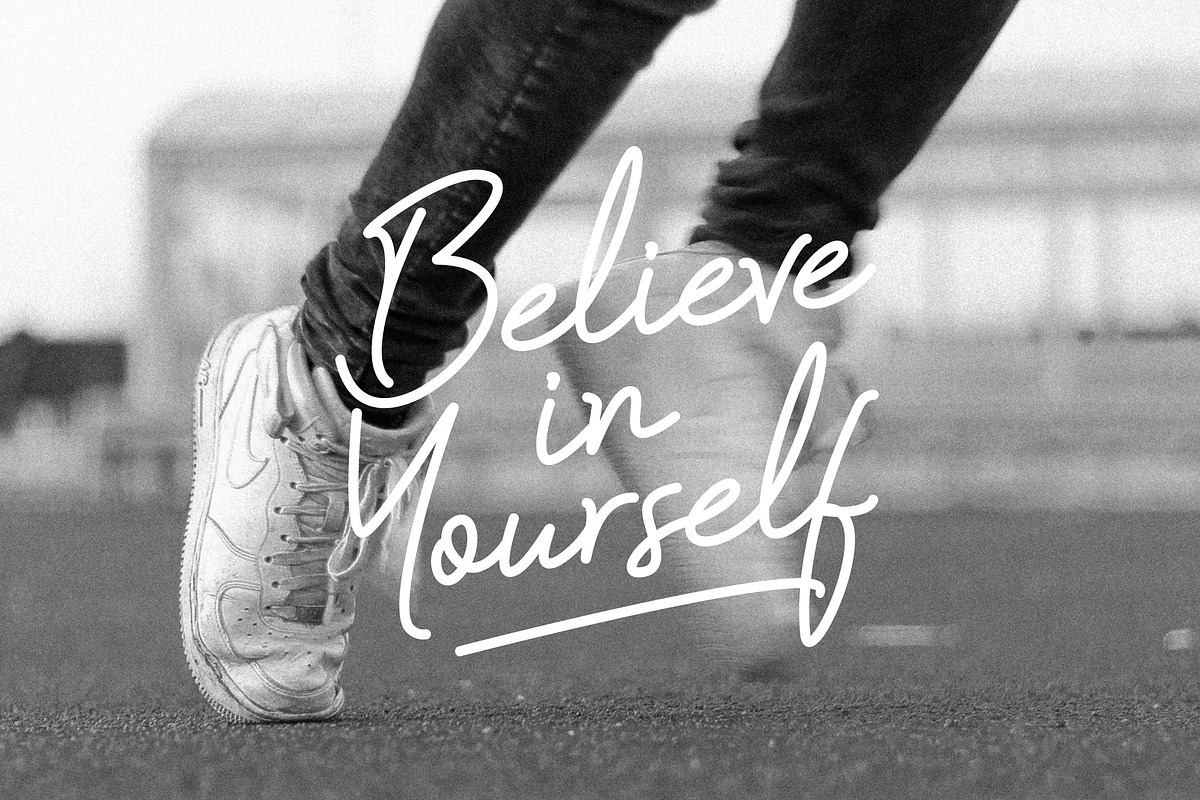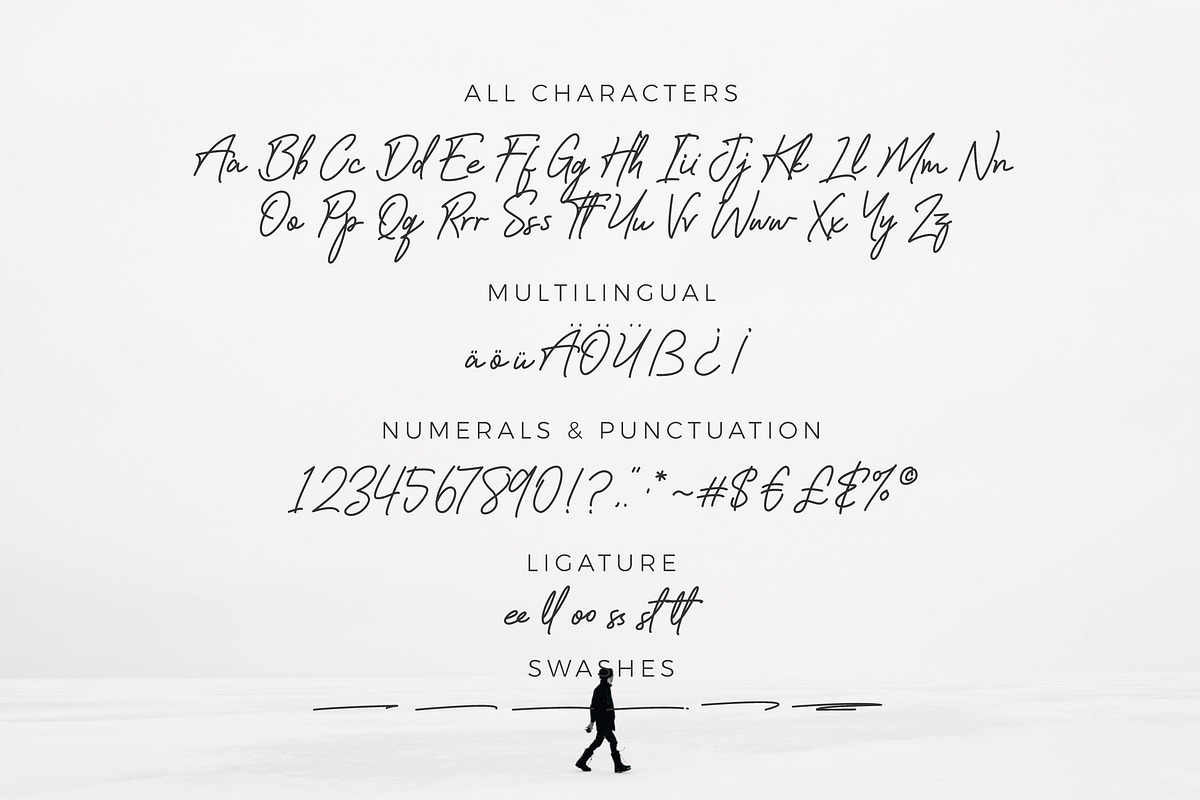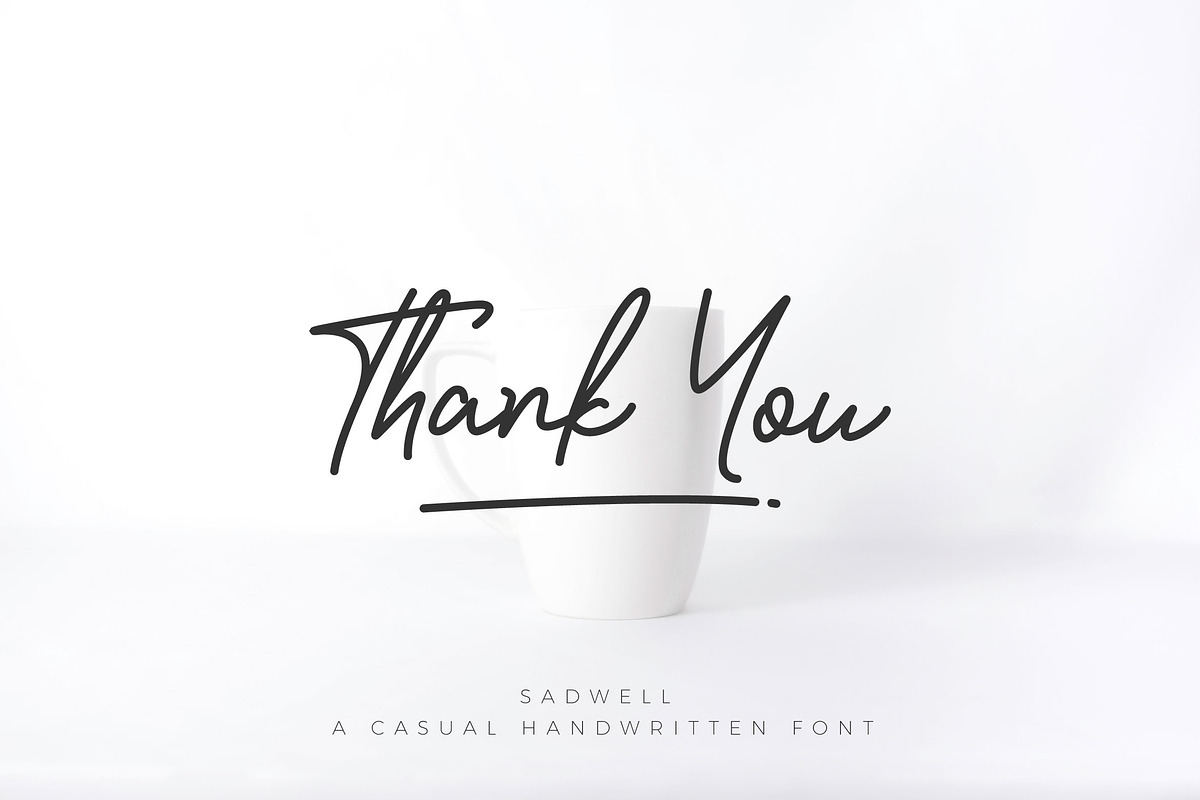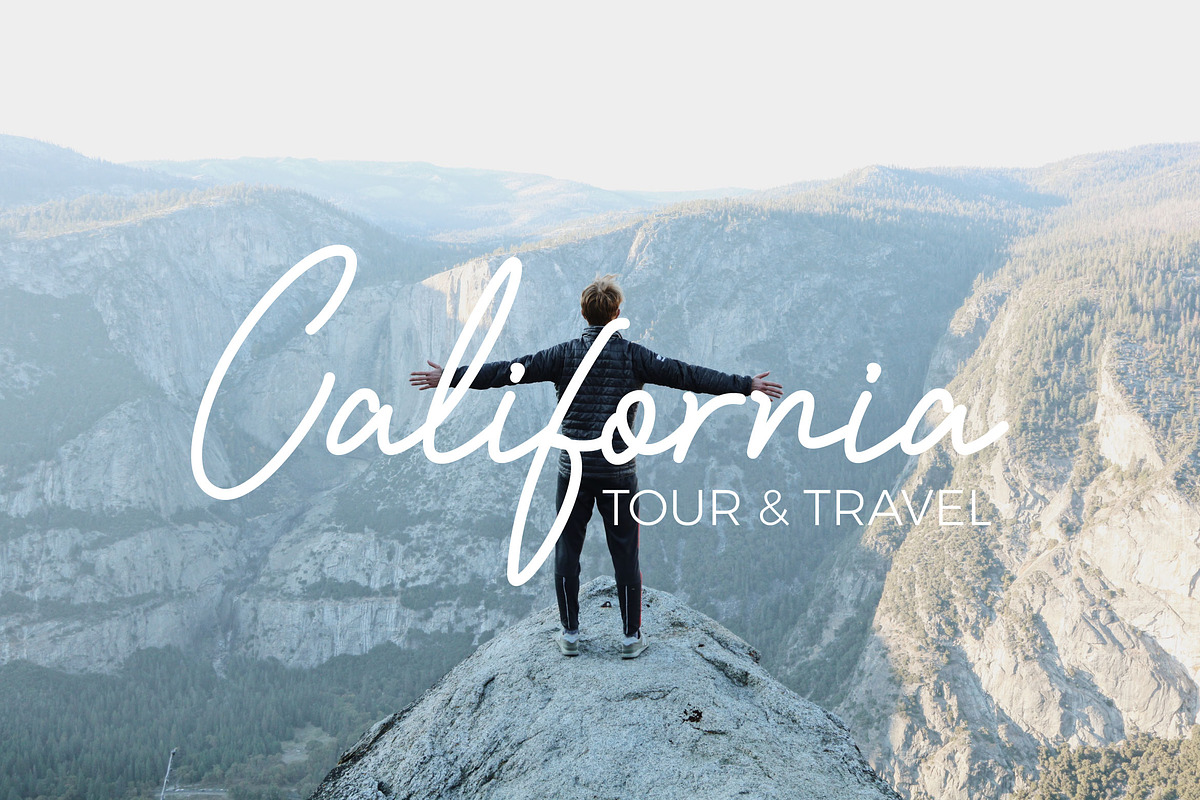
Sadwell A Casual Handwritten
Sadwell is a modern and fresh script font. Its handwritten style will bring an elegant, natural, and stylish look to your designs.
It’s perfect for photography, watermarks, social media posts, advertisements, logos & branding, invitations, product designs, labels, stationery, wedding designs, product packaging, special events, and anything that needs a handwriting taste.
- Tons of glyphs
- Fonts include multilingual support for; ä ö ü Ä Ö Ü ß ¿ ¡